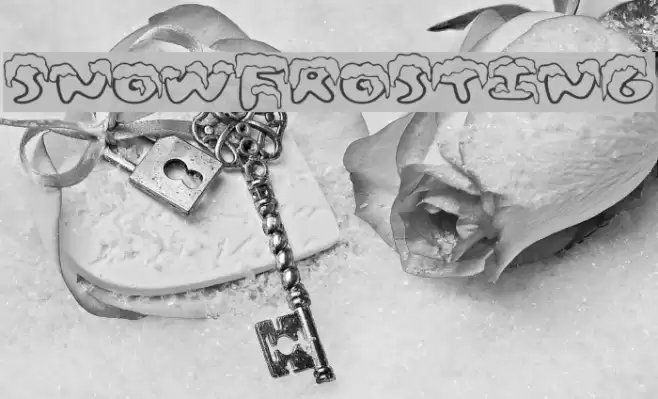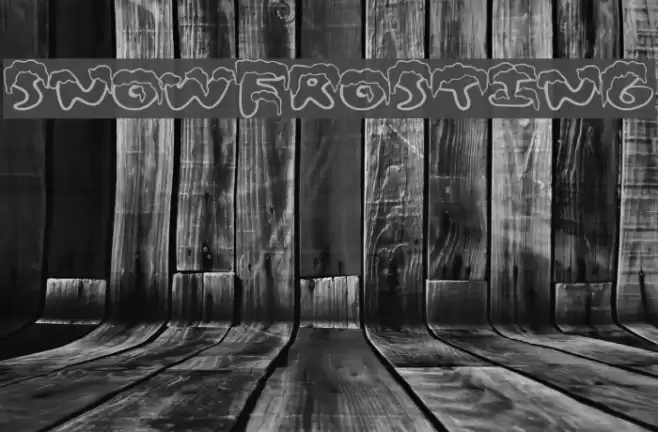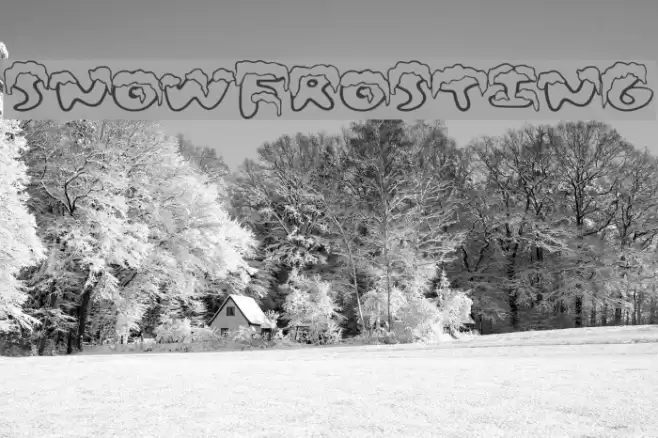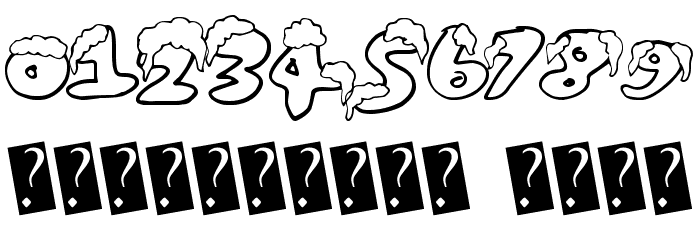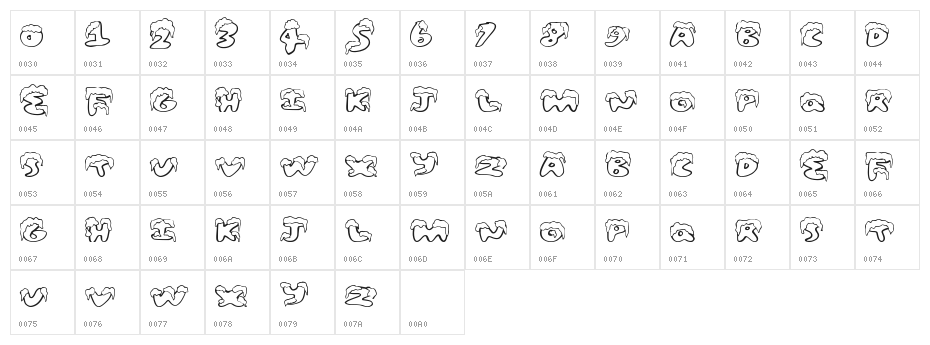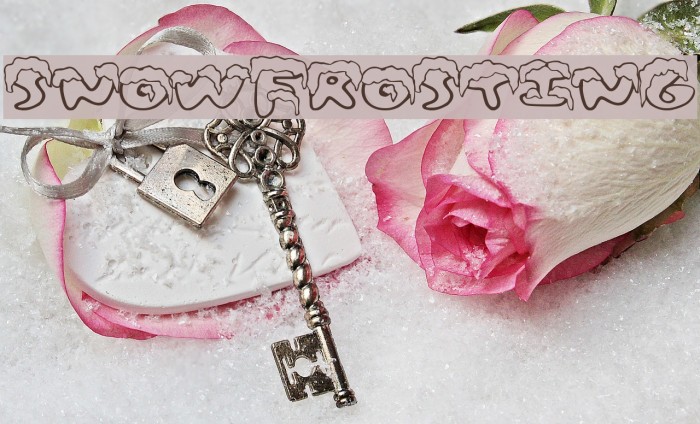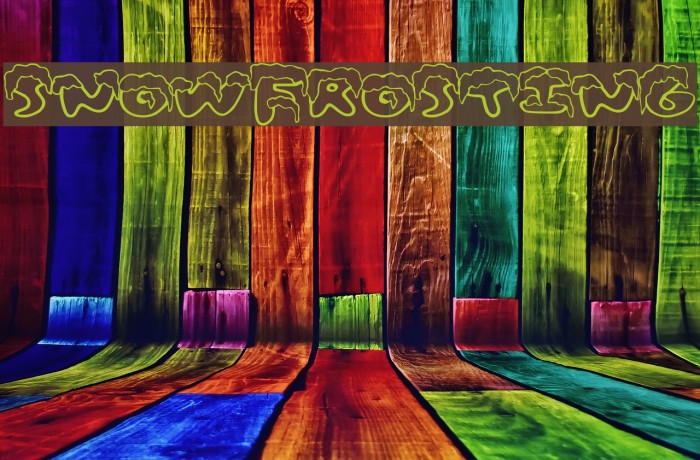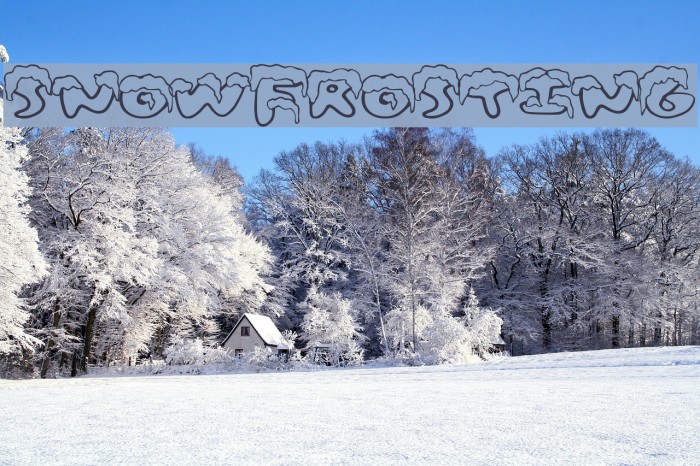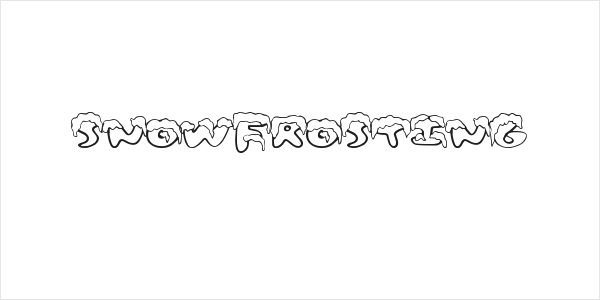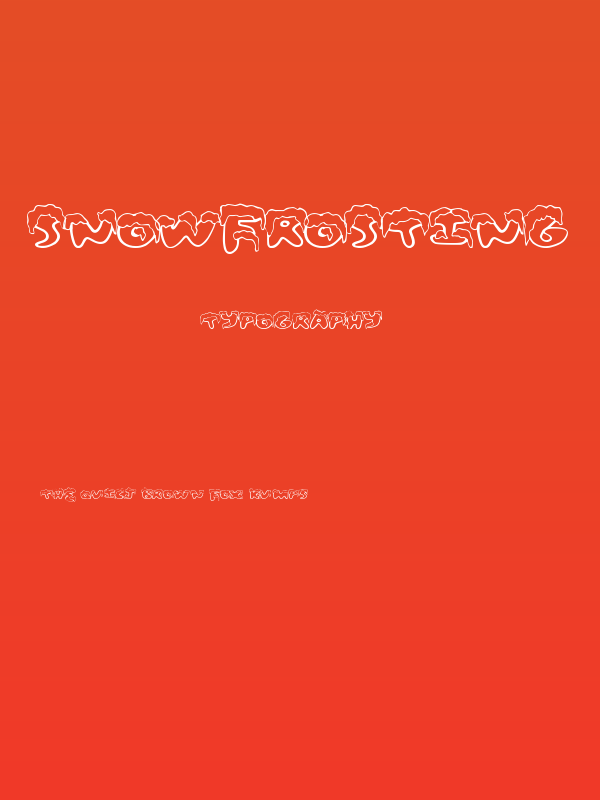
SnowFrosting Font
SnowFrosting Description
This playful and whimsical font features letters that appear to be covered in snow, creating a frosty and winter-themed aesthetic. The characters are bold and rounded, with a decorative snow cap on top of each letter, adding a unique and festive touch. The font maintains a consistent thickness throughout, with smooth curves and a slightly cartoonish style. It is designed to capture the essence of winter and holiday cheer, making it ideal for seasonal projects. The numbers and special characters follow the same snowy theme, ensuring a cohesive look across all text elements.
A playful, snow-capped font perfect for winter-themed designs from Fancy fonts.
- Proposed Projects: Ideal for holiday cards, winter event invitations, festive banners, and seasonal advertising campaigns.